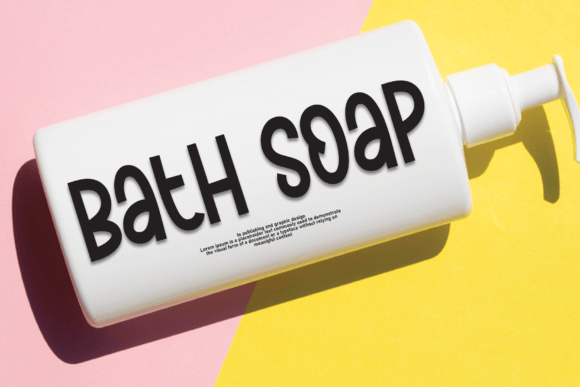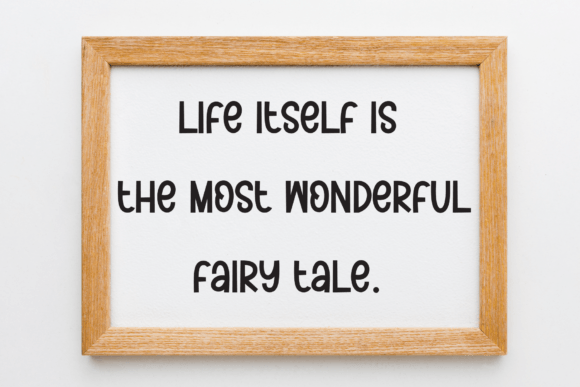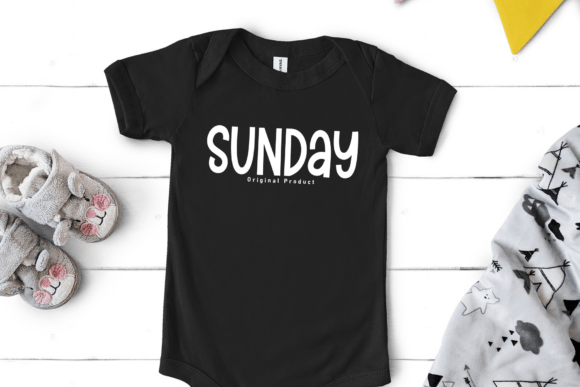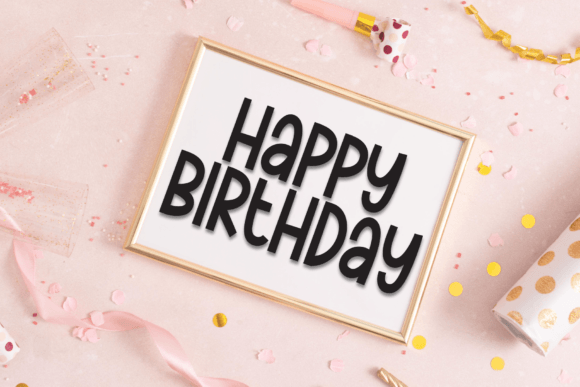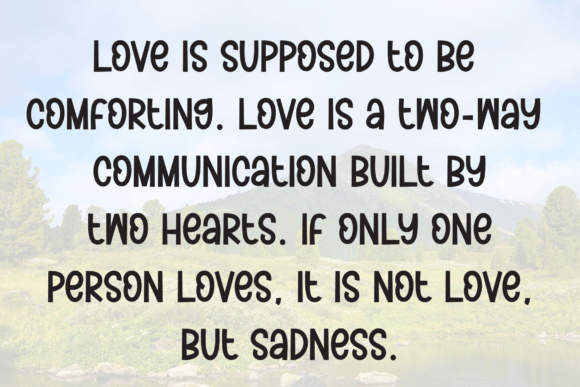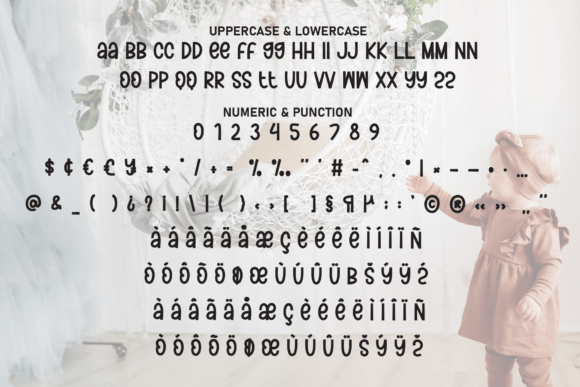
Baby Boho Font: Adding a Touch of Whimsy to Your Designs
Are you looking for a font that can add a dash of personality to your designs? Look no further than the Baby Boho Font, a charming, handwritten display font that is sure to captivate and delight. With its warm and friendly appeal, this font is perfect for designers and crafters who want to add a sprinkle of joy to their creations.
What is Baby Boho Font?
Baby Boho Font is a beautifully designed, handwritten display font that is perfect for a variety of design projects. Whether you’re creating festive wedding invitations, beloved greeting cards, or any other design project that needs a touch of personality, this font is sure to impress. Its playful yet elegantly sophisticated style makes it a versatile design tool that can be used in a wide range of applications.
Key Features of Baby Boho Font
- Handwritten display font: Baby Boho Font is a unique, handwritten display font that adds a personal touch to your designs.
- Warm and friendly appeal: The font has a warm and friendly appeal that makes it perfect for designs that need a touch of personality.
- Playful yet elegant: Baby Boho Font is perfectly playful yet elegantly sophisticated, making it a versatile design tool.
- Perfect for festive designs: The font is ideal for festive wedding invitations, greeting cards, and other design projects that need a touch of whimsy and fun.
Why Choose Baby Boho Font?
There are many reasons why designers and crafters choose Baby Boho Font for their design projects. Here are a few:
- Adds a touch of personality: Baby Boho Font adds a unique touch of personality to your designs, making them stand out from the crowd.
- Versatile: Baby Boho Font can be used in a wide range of design projects, from wedding invitations to greeting cards and more.
- High-quality design: The font is designed to high standards, ensuring that your designs look professional and polished.
Design Ideas Using Baby Boho Font
Baby Boho Font is a versatile design tool that can be used in a wide range of design projects. Here are a few ideas to get you started:
- Wedding invitations: Use Baby Boho Font to create beautiful, festive wedding invitations that will impress your guests.
- Greeting cards: Add a touch of personality to your greeting cards with Baby Boho Font.
- Social media graphics: Use the font to create eye-catching social media graphics that will stand out from the crowd.
- Blog posts: Add a touch of whimsy and fun to your blog posts with Baby Boho Font.
In conclusion, Baby Boho Font is a charming, handwritten display font that is perfect for designers and crafters who want to add a touch of personality to their designs. With its warm and friendly appeal, playful yet elegant style, and versatility, this font is sure to become a favorite in your design library. So why wait? Download Baby Boho Font today and start adding a sprinkle of joy to your designs!